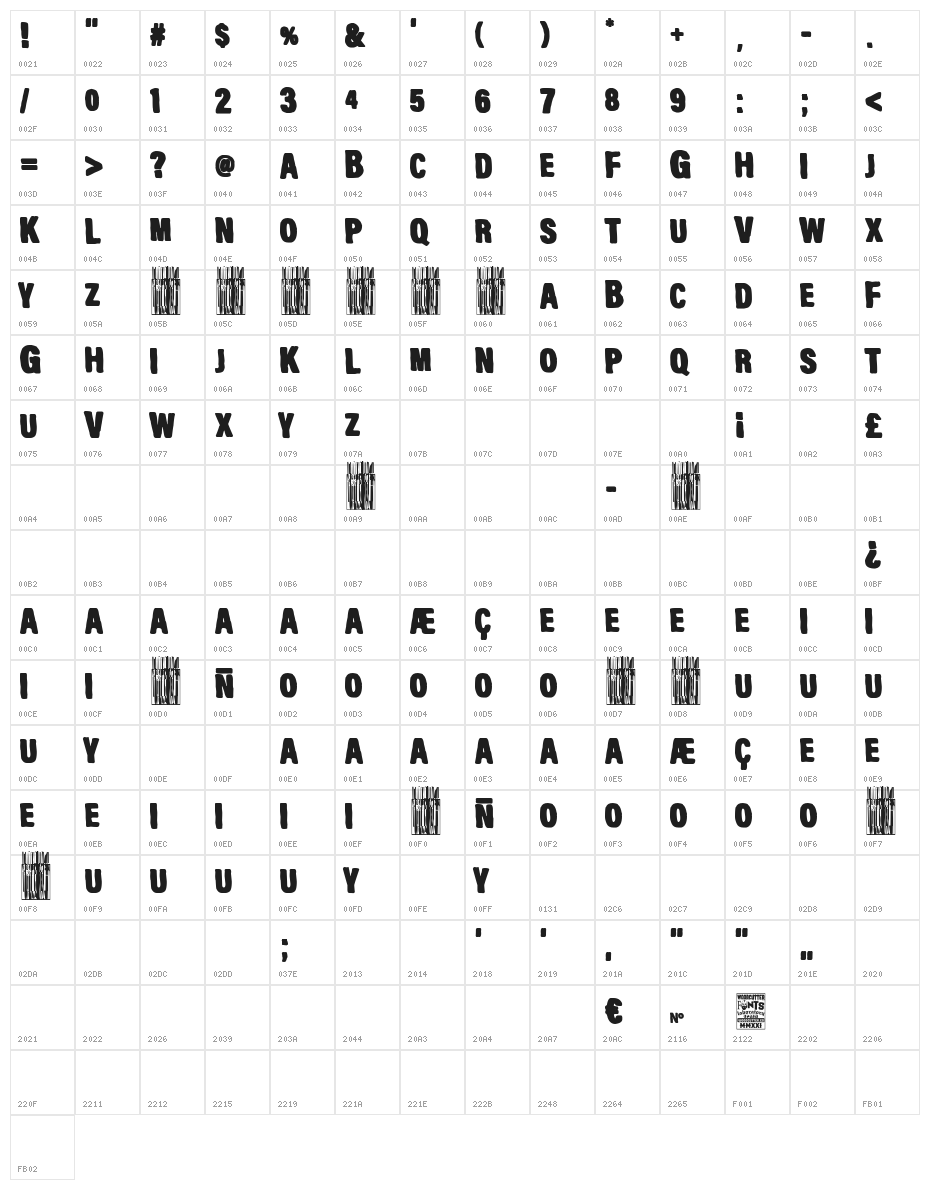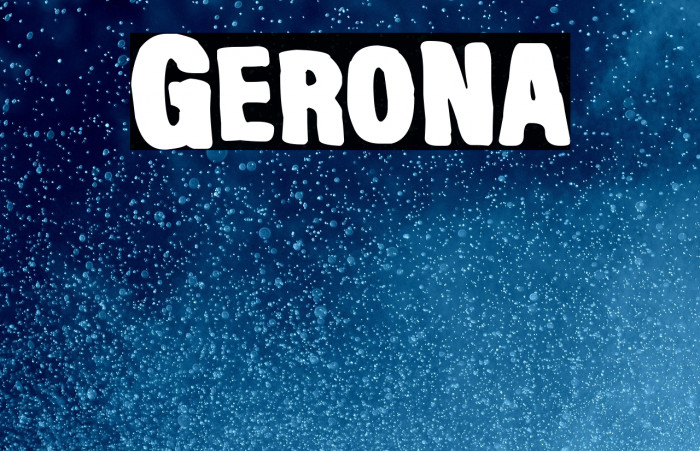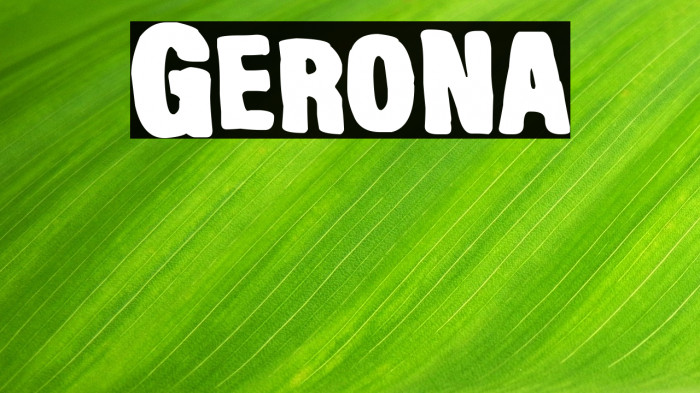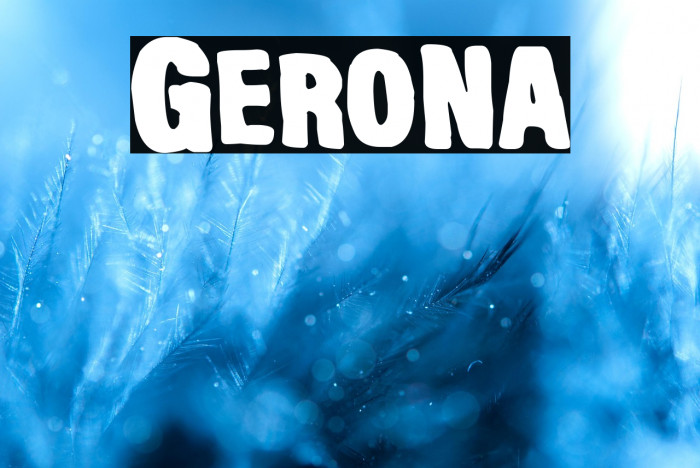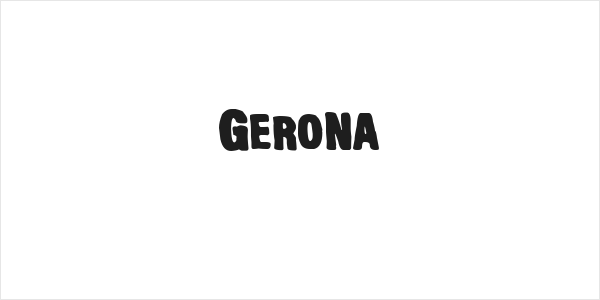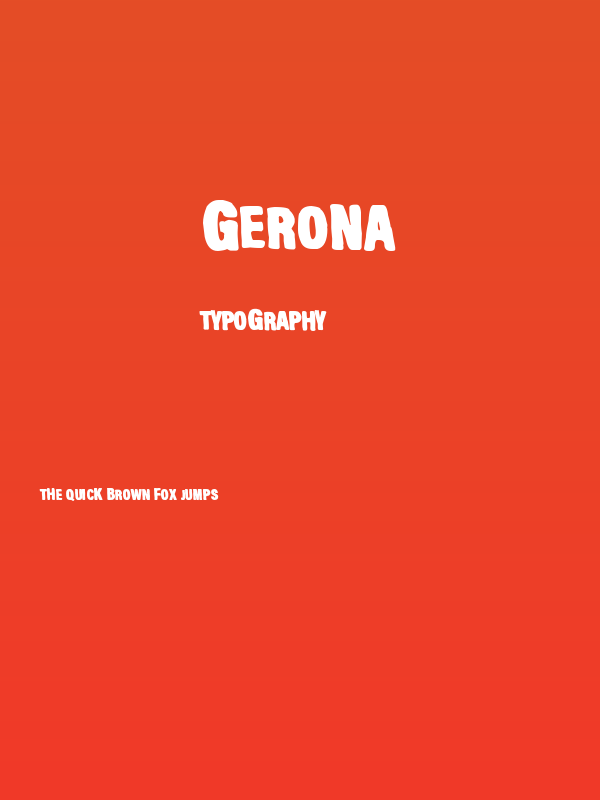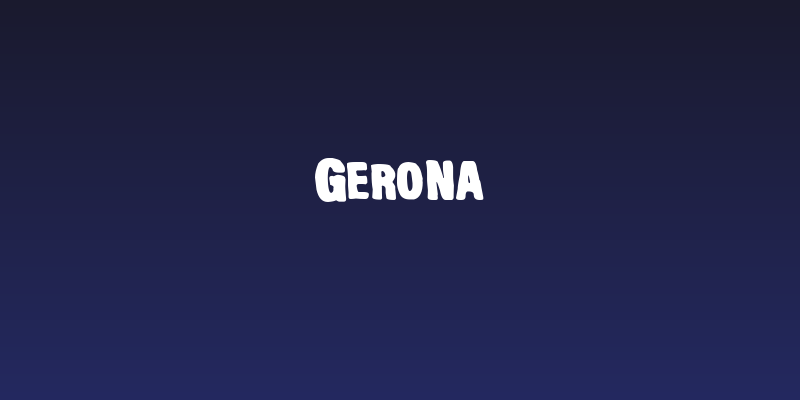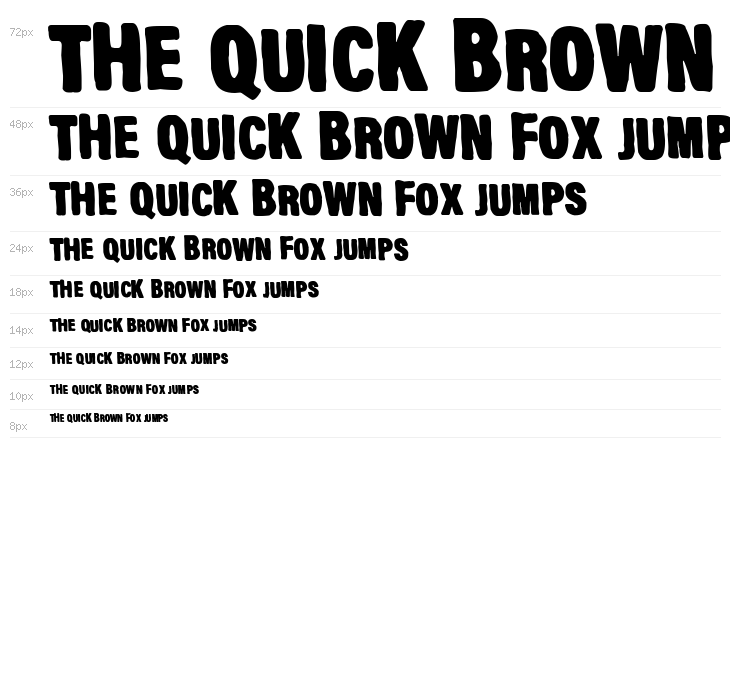
Gerona Font
Gerona Description
This font features a bold and playful style with thick, rounded strokes that give it a friendly and approachable appearance. The characters are slightly irregular, adding a hand-drawn feel that enhances its charm. The uppercase and lowercase letters maintain a consistent weight, contributing to a cohesive look. Numbers and special characters are designed with the same playful aesthetic, making them stand out. The overall design is reminiscent of retro or vintage styles, perfect for projects that require a touch of nostalgia or whimsy.
| Use Case | Logos, Posters, Headlines |
| Proposed Projects | Ideal for children's books, playful branding, posters, and retro-themed designs. |